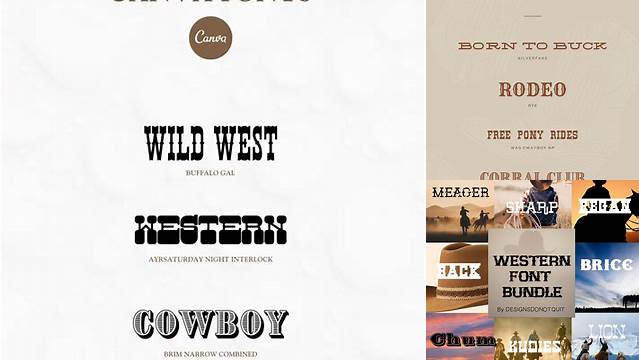
Free Western Fonts On Canva: A Design Roundup
Hey guys! Are you looking to add a touch of the Wild West to your designs? You've come to the right place. Using western fonts can give your projects that authentic, rustic feel, perfect for everything from posters and invitations to branding and social media graphics. Canva, the super user-friendly design platform, offers a fantastic selection of free western fonts that you can use to create stunning visuals. This article will guide you through the best free western fonts available on Canva, how to use them effectively, and even some design tips to help you create your own Wild West masterpiece. So, saddle up and let’s dive into the world of western typography on Canva!
1. Best Free Western Fonts for Canva
When it comes to the best free western fonts for Canva, there’s a whole herd to choose from! The key is to find fonts that not only capture the essence of the Wild West but also work well in your specific design project. Think about the mood you're trying to create. Are you going for a classic, old-timey feel? Or something a bit more modern with a western twist? Some fonts are bold and attention-grabbing, perfect for headlines, while others are more subtle and work well for body text. Exploring different options and seeing how they look in your design is crucial. Don't be afraid to experiment with different font pairings, sizes, and colors. Remember, the right font can make all the difference in conveying your message and creating a visually appealing design. So, let's round up some top contenders!
2. Canva's Western Font Selection
Canva's got a seriously impressive selection of western fonts, making it a goldmine for designers looking to add some frontier flair to their work. Seriously, you can find everything from classic slab serifs that scream “Wanted” poster to more stylized scripts that evoke the charm of a dusty saloon. The beauty of Canva is that it makes exploring these fonts super easy. You can simply type in "western" or related keywords in the font search bar and bam! A whole range of options appears before your very eyes. Plus, Canva's user-friendly interface means you can quickly preview how each font looks in your design, playing around with sizes, colors, and effects until you strike design gold. Whether you're working on invitations, logos, social media posts, or anything in between, Canva's western font selection has you covered. So, go ahead and start exploring – your inner cowboy (or cowgirl) will thank you!
3. Classic Western Fonts on Canva Free
If you're aiming for that authentic, old-school Wild West vibe, then classic western fonts are your trusty steeds. These fonts typically feature bold, slab-serif letterforms that instantly conjure up images of old wanted posters, saloon signs, and vintage advertisements. Think fonts with strong, sturdy characters and a bit of rugged charm. Canva offers a fantastic selection of these classic western fonts for free, making it super easy to nail that retro aesthetic. Some popular choices include fonts that mimic the look of wood type or letterpress printing, giving your designs a tactile and handcrafted feel. Using these fonts effectively involves considering their impact. They tend to be quite assertive, so it's often best to pair them with simpler, cleaner fonts for body text. Experiment with different font sizes and weights to create visual hierarchy and ensure your message stands out. Don't be shy about adding a touch of texture or distress to your designs to really sell that vintage western feel.
4. Rustic Western Fonts for Free on Canva
For a more rustic and weathered look, Canva's got you covered with a range of free western fonts that have that perfect touch of grit and charm. These fonts often feature slightly uneven lines, distressed textures, and a hand-drawn feel, making them ideal for designs that need a bit of earthy authenticity. Imagine the kind of lettering you'd see on an old general store sign or a weathered saddle – that's the vibe we're going for here! When you're working with these rustic fonts, think about how they can enhance your overall design. They're fantastic for creating a sense of history and heritage, so they're perfect for projects related to the outdoors, country living, or vintage themes. To really make these fonts shine, consider pairing them with natural textures, such as wood grain or leather, and a warm, muted color palette. Adding a subtle drop shadow or a slight blur can also enhance the rustic effect, making your typography look like it's been weathered by the desert sun.
5. Vintage Western Fonts on Canva: Free Options
Looking to evoke the spirit of the Old West? Vintage western fonts are your secret weapon, and Canva has a stellar selection of free options to choose from. These fonts are all about capturing the essence of a bygone era, with their intricate serifs, bold strokes, and a touch of old-world charm. Think of the lettering you'd see on a vintage whiskey label, a saloon's swinging doors, or a classic Western movie poster – that's the aesthetic we're aiming for. The key to using these fonts effectively is to play up their vintage feel. Consider incorporating elements like ornate borders, classic illustrations, and aged textures to complement the typography. Color palettes are also crucial: think warm browns, faded reds, and antique golds to really sell the vintage vibe. These fonts are fantastic for creating logos, invitations, posters, and any design that needs a dose of historical flair. With Canva's free vintage western fonts, you can easily transport your audience back to the Wild West!
6. Using Western Fonts for Branding on Canva
Using western fonts for branding can be a fantastic way to stand out and create a memorable identity, especially if your brand has a connection to the Wild West, Americana, or a rustic aesthetic. Canva makes it super easy to incorporate these fonts into your branding materials, from logos and business cards to social media graphics and website headers. The key is to choose a western font that reflects your brand's personality and values. A bold, slab-serif font might be perfect for a rugged outdoor brand, while a more elegant script font could work well for a boutique with a western-inspired style. Once you've selected your font, be consistent in using it across all your branding materials to create a cohesive and recognizable look. Consider the other elements of your brand identity, such as your color palette and imagery, to ensure they complement the western font and create a unified visual message. With the right font choice and a consistent approach, you can lasso your audience's attention and build a brand that's as bold and unique as the Wild West itself!
7. Western Fonts for Logos on Canva
Your logo is the face of your brand, so choosing the right font is essential. Western fonts can be a powerful choice for logos that need a rugged, vintage, or Americana feel, and Canva offers a great range of options to play with. When selecting a western font for your logo, think about the message you want to convey. A strong, bold font can communicate reliability and strength, while a more decorative font might suggest a sense of tradition or craftsmanship. Consider the legibility of the font, especially at smaller sizes, to ensure your logo remains clear and recognizable. It's also a good idea to experiment with different font pairings to create a unique and balanced look. Canva's easy-to-use design tools make it simple to try out various fonts, sizes, and styles until you find the perfect fit for your brand. A well-chosen western font can give your logo a distinctive edge, helping you stand out from the crowd and make a lasting impression.
8. Best Free Western Style Fonts on Canva
When you're aiming for that authentic Wild West vibe, snagging the best free western-style fonts on Canva is like striking gold! We're talking about those fonts that just scream “cowboy,” “saloon,” and “vintage Americana.” Canva's packed with options, from those sturdy slab serifs that look straight off a wanted poster to the more swashbuckling scripts that bring a touch of outlaw charm. These free western-style fonts are perfect for posters, invitations, logos, and any design that needs a dose of that old-timey flair. To make the most of them, think about how they work with your overall design. Pair them with classic western imagery like horseshoes, cacti, and ropes, and use a color palette of browns, reds, and creams to complete the look. Whether you’re creating a flyer for a country music night or branding a rustic business, these fonts will help you hit the bullseye every time.
9. Western Fonts for Posters on Canva: Free Options
Want to create a poster that really stands out and captures the spirit of the Old West? Using western fonts is a surefire way to do it, and Canva has a heap of free options to help you nail that vintage vibe. Think about those classic movie posters or old-timey advertisements – the fonts they used were bold, distinctive, and packed with character. Canva offers a range of fonts that fit the bill, from strong slab serifs to decorative scripts, perfect for headlines, subheadings, and even body text if you choose wisely. When designing your poster, consider the overall aesthetic you're aiming for. Western fonts pair beautifully with rustic textures, vintage illustrations, and earthy color palettes. Don't be afraid to experiment with different font combinations to create a visually appealing and impactful design. Whether you're promoting a rodeo, a country music concert, or a Wild West-themed event, the right western font will make your poster a real standout.
10. Western Fonts for Invitations on Canva: Free Choices
Planning a Wild West-themed party or event? Western fonts are your go-to for creating invitations that capture the spirit of the frontier. Canva’s got a whole posse of free choices that will help you set the tone right from the start. When it comes to invitations, you want fonts that are not only stylish but also easy to read. Think about using a bold, attention-grabbing font for the main event details and a cleaner, simpler font for any additional information. Canva offers a variety of western fonts, from classic slab serifs that evoke vintage wanted posters to elegant scripts that add a touch of rustic charm. To really nail the western theme, consider incorporating other design elements like rope borders, cowboy hats, or desert landscapes. And remember, a well-chosen color palette – think browns, reds, and dusty yellows – can enhance the overall effect. With Canva's free western fonts, your invitations are sure to be a hit!
11. Canva Free Western Font Generator
While Canva itself doesn't have a dedicated "western font generator" in the sense of creating completely new fonts from scratch, it does offer a super user-friendly way to access and use a wide range of free western fonts. You can think of Canva as a fantastic western font resource, where you can easily browse, preview, and incorporate these fonts into your designs. The platform's intuitive interface allows you to experiment with different font styles, sizes, and colors, making it simple to create the perfect western look for your project. Plus, Canva’s text tools let you add effects like shadows, outlines, and curves, further customizing your typography. So, while you're not actually generating new fonts, Canva gives you all the tools you need to create stunning western-themed designs with ease. It’s like having a whole font foundry at your fingertips, ready to bring your Wild West visions to life!
12. How to Download Western Fonts for Canva Free
Okay, so here’s the deal: you don’t actually download western fonts directly into Canva in the traditional sense. Canva works a little differently. Instead of downloading font files, you use the fonts that are already available within the Canva platform. The awesome thing is that Canva has a bunch of free western fonts you can use in your designs without any hassle. To access them, you simply open your design in Canva, select the text you want to style, and then click on the font dropdown menu. From there, you can search for “western” or browse through the different font styles until you find the perfect one. It’s super easy and convenient! Plus, Canva regularly updates its font library, so you’ll always have fresh options to choose from. So, no need to worry about downloads – just dive in and start designing!
13. Western Script Fonts on Canva Free
If you're looking to add a touch of elegance and flair to your western-themed designs, then western script fonts are the way to go, and Canva has some fantastic free options available. These fonts often feature flowing, cursive-style letterforms that evoke the charm of old-timey saloons and vintage signage. They're perfect for adding a touch of sophistication to invitations, logos, and other designs where you want to make a statement. When using western script fonts, it's important to consider readability. These fonts can be quite decorative, so it's best to use them sparingly, perhaps for headlines or short phrases. Pair them with a simpler, more legible font for body text to ensure your message is clear. Canva makes it easy to experiment with different font combinations and styles, so you can find the perfect balance for your design. With the right western script font, you can add a touch of Wild West elegance to your projects.
14. Best Western Fonts for Commercial Use on Canva Free
When you're creating designs for commercial projects, it's crucial to make sure you have the right to use the fonts you choose. Luckily, Canva offers a great selection of western fonts that are free for commercial use, meaning you can use them in your projects without worrying about licensing issues. This is a huge plus for designers and entrepreneurs who want to create professional-looking materials without breaking the bank. To ensure you're using a font that's free for commercial use, check Canva's licensing terms, which are usually clearly indicated. The majority of Canva's free fonts fall under this category, but it's always a good idea to double-check. With Canva's wide range of commercially-free western fonts, you can confidently create logos, marketing materials, and other designs that capture the spirit of the Wild West, knowing you're fully covered legally.
15. Western Serif Fonts Free on Canva
Western serif fonts are a classic choice for designs that need a strong, traditional, and undeniably Wild West feel. The serifs – those little decorative strokes at the ends of the letters – give these fonts a sense of formality and heritage. Canva offers a solid selection of free western serif fonts that are perfect for everything from posters and invitations to branding and website headers. Think about the classic wanted posters or the signage on an old general store – those often used serif fonts to convey a sense of authenticity and authority. When using western serif fonts, consider the overall tone of your design. These fonts tend to be quite assertive, so they're great for headlines and titles. Pair them with a simpler sans-serif font for body text to ensure readability. Canva's easy-to-use design tools make it simple to experiment with different font pairings and styles until you find the perfect combination for your project.
16. Western Calligraphy Fonts on Canva for Free
For a touch of elegance and handwritten charm with a western twist, western calligraphy fonts are a fantastic choice. These fonts evoke the spirit of handwritten letters and vintage signage, adding a unique and personal feel to your designs. Canva offers a range of free western calligraphy fonts that can bring a touch of the Wild West to your projects. When using calligraphy fonts, it's important to consider readability. These fonts can be quite decorative, so it's best to use them sparingly, perhaps for headlines, invitations, or special announcements. Pair them with a simpler, more legible font for body text to ensure your message is clear. Canva's design tools make it easy to experiment with different font sizes, colors, and styles, allowing you to create a beautiful and balanced design. A well-chosen western calligraphy font can add a touch of sophistication and personality to your projects, making them truly stand out.
17. Free Western Fonts for Cricut on Canva
If you're a Cricut crafter looking to add some Wild West flair to your projects, Canva can be a fantastic resource for finding free western fonts. While you can't directly use fonts from Canva within Cricut Design Space, you can use Canva to create text designs with western fonts and then download those designs as SVGs or other compatible formats to import into Cricut. This allows you to take advantage of Canva's wide selection of free western fonts for your cutting projects. Simply create your text in Canva using your chosen font, customize the size and style as needed, and then download the design as an SVG file. You can then upload the SVG into Cricut Design Space and use it for your vinyl decals, iron-on transfers, and other crafting projects. It's a great way to combine the design power of Canva with the cutting capabilities of your Cricut machine.
18. Wild West Style Fonts Free on Canva
If you're going all-in on the Wild West theme, you need fonts that truly capture the spirit of the frontier, and Canva's got a fantastic selection of free options to help you do just that. Think bold slab serifs that evoke the look of wanted posters, rugged scripts that conjure up images of dusty saloons, and decorative fonts that add a touch of vintage charm. These wild west style fonts are perfect for creating everything from posters and invitations to logos and social media graphics. When using these fonts, don't be afraid to embrace the rustic aesthetic. Pair them with earthy colors, vintage textures, and classic western imagery like cowboy hats, horseshoes, and cacti. Canva's easy-to-use design tools make it simple to experiment with different font combinations and styles until you find the perfect look for your project. So, saddle up and get ready to unleash your inner cowboy with Canva's free Wild West fonts!
19. Western Fonts for T-Shirts on Canva: Free Selection
Designing a T-shirt with a Wild West theme? Western fonts are the perfect way to add that authentic touch, and Canva offers a fantastic free selection to choose from. When selecting a font for a T-shirt design, it's important to consider legibility. You want a font that looks great but is also easy to read, even from a distance. Bold, sturdy fonts with clear letterforms tend to work best for T-shirts. Canva offers a variety of western fonts that fit the bill, from classic slab serifs to slightly distressed fonts that add a touch of ruggedness. Think about the overall design of your T-shirt and choose a font that complements the imagery and message. Western fonts pair beautifully with graphics like cowboy hats, horses, and desert landscapes. With Canva's free western fonts, you can create a T-shirt design that's both stylish and full of Wild West spirit.
20. Using Western Fonts with Other Fonts on Canva Free
One of the keys to great typography is knowing how to pair fonts effectively. While western fonts are awesome and full of character, they often shine even brighter when paired with other fonts. Luckily, Canva makes it super easy to experiment with different font combinations, and it's all free! A general rule of thumb is to pair a more decorative western font with a simpler, more legible font. For example, you might use a bold slab-serif western font for a headline and then use a clean sans-serif font for the body text. This creates a visual hierarchy and ensures that your message is clear and easy to read. Canva's font library includes a wide range of sans-serif, serif, and script fonts that pair beautifully with western fonts. Don't be afraid to try out different combinations until you find the perfect balance for your design. With a little experimentation, you can create typography that's both eye-catching and effective.
21. Western Shadow Fonts on Canva: Free Options
To add depth and dimension to your designs, western shadow fonts can be a fantastic choice. These fonts have a built-in shadow effect that gives them a 3D look, making them stand out and grab attention. Canva offers a range of free western fonts with shadow effects, allowing you to easily create eye-catching typography. When using shadow fonts, it's important to consider the overall design and the legibility of the text. The shadow effect can make the font appear bolder and more impactful, so it's often best to use these fonts for headlines or short phrases. Canva's design tools allow you to customize the shadow effect, adjusting the color, distance, and blur to achieve the perfect look. Experiment with different color combinations to see what works best for your design. A well-chosen shadow font can add a touch of drama and visual interest to your western-themed projects.
22. Western Outline Fonts Free on Canva
Western outline fonts are a great way to add a distinctive and vintage touch to your designs, and Canva offers a range of free options that capture the spirit of the Wild West. These fonts feature a hollowed-out appearance, with the letters defined by their outlines rather than solid shapes. This gives them a unique, almost stencil-like look that's perfect for creating a sense of age and authenticity. When using outline fonts, it's important to consider the background color and the overall design. The outlines can sometimes get lost against busy backgrounds, so it's often best to use them on a solid or subtly textured surface. Canva's design tools allow you to adjust the thickness of the outline, giving you greater control over the final look. Experiment with different colors and sizes to see what works best for your project. Western outline fonts are fantastic for logos, posters, and any design that needs a touch of vintage flair.
23. Creating a Western Theme with Canva Free Fonts
Canva is your best buddy when you want to whip up a western theme, and the free fonts are your trusty steeds! It's not just about slapping on any ol’ western-looking font; it’s about creating a whole vibe. Think about what makes the Wild West, well, wild! We’re talking rugged textures, earthy colors, and a touch of that old-timey grit. Start by choosing a main font that screams “cowboy” – maybe a bold slab serif or a swanky script. Then, find a secondary font that’s a bit more understated to balance things out. Canva lets you mix and match like a pro. Toss in some western-style graphics like horseshoes, cacti, or even a sheriff’s badge. And don’t forget the color palette! Warm browns, dusty yellows, and maybe a pop of red can really nail that western feel. With Canva’s free fonts and a little creativity, you’ll be struttin’ into the sunset with a design that’s pure gold!
24. Western Fonts for Social Media on Canva for Free
Want your social media posts to have that Wild West swagger? Canva's got your back with a posse of western fonts that are free to use! Whether you're promoting a country music event, sharing a rustic recipe, or just want to add some old-school charm to your feed, the right font can make all the difference. Think about those classic wanted posters or vintage saloon signs – that's the kind of vibe we're going for! Canva offers a range of fonts that fit the bill, from bold slab serifs to decorative scripts. When designing your social media graphics, keep in mind the platform you're using. Fonts that look great on Instagram might not work as well on Facebook or Twitter. Consider the size and format of your posts and choose fonts that are easy to read on different devices. With Canva's free western fonts, you can create social media content that's both eye-catching and on-brand.
25. Combining Free Western Fonts with Canva Elements
The magic of Canva really shines when you start combining its free western fonts with other design elements. Think of it like crafting a perfect campfire stew – each ingredient (or in this case, design element) adds its own flavor to the mix! Canva’s got a treasure trove of western-themed graphics, illustrations, and photos that can take your designs to the next level. Picture this: a bold slab-serif font paired with a vintage-style illustration of a cowboy on horseback, all set against a rustic wood-grain background. Boom! Instant Wild West vibes. Don’t be afraid to play around with different combinations. Try adding borders, textures, and color overlays to create a unique look. The key is to balance the fonts and elements so that they complement each other without overpowering the design. Canva's drag-and-drop interface makes it super easy to experiment and create designs that are both visually appealing and on-theme. So, go ahead and unleash your creativity – the possibilities are as vast as the open range!
26. Legibility Tips for Western Fonts on Canva Free
Western fonts are awesome for adding a touch of the Wild West to your designs, but let's be real, some of them can be a bit tricky to read if you're not careful. The good news is that Canva gives you all the tools you need to make sure your typography is both stylish and legible, and it's all free! The first tip is to think about contrast. If you're using a bold, decorative western font, pair it with a simpler font for body text to avoid overwhelming the reader. Also, make sure there's enough contrast between your text color and the background. Light text on a dark background or vice versa usually works best. Font size matters too! Western fonts often look better when they're a bit larger, but avoid making them so big that they dominate the entire design. Finally, pay attention to spacing. Adjust the letter spacing and line height to make sure your text is easy to scan. With a little attention to these details, you can make your western fonts shine without sacrificing readability.
27. Advanced Tips for Using Western Fonts on Canva Without Spending a Dime
Okay, so you're ready to take your western font game on Canva to the next level, and you wanna do it all without spending a dime? You got it! Let's dive into some advanced tips that'll make your designs look like they were crafted by a seasoned pro. First up: font pairing. Don't just slap a western font on there and call it a day. Think about what other fonts will complement it. A classic pairing is a bold slab serif with a clean sans-serif. Next, play with layering. Canva lets you layer text boxes, so try creating a shadow effect by duplicating your text and slightly offsetting it in a different color. Another pro tip: use Canva's effects to add even more visual interest. Try adding a slight curve or a subtle glow to your text. And finally, don't be afraid to experiment! Canva is a playground for creativity, so try out different font combinations, sizes, and styles until you find the perfect look. With these advanced tips, you can create stunning western designs on Canva without spending a single buck!
28. Free Western Fonts on Canva for Your Next Project
Got a project that needs a touch of the Wild West? Canva’s got your back with a whole herd of free western fonts ready to ride into action! Whether you're designing a poster for a rodeo, creating invitations for a country-themed party, or branding a rustic business, the right font can make all the difference. The best part? Canva's got options for every style, from classic slab serifs that evoke vintage wanted posters to elegant scripts that add a touch of old-world charm. Before you dive in, think about the overall message you want to convey and choose a font that fits the mood. A bold, sturdy font might be perfect for a headline, while a more delicate script could work well for a tagline or invitation details. Canva's easy-to-use design tools make it a breeze to experiment with different fonts and styles until you find the perfect fit for your next project.
29. Free Resources for Western Design Elements on Canva
Alright, you've got your western fonts sorted on Canva, but what about the rest of your design? Luckily, Canva is a treasure trove of free resources that can help you create a truly authentic Wild West look. We're talking about graphics, illustrations, photos, and even templates that are all just a click away. Start by searching for western-themed keywords in Canva's elements library. You'll find everything from cowboy hats and horseshoes to cacti and vintage badges. Don't be afraid to mix and match different elements to create a unique design. Canva also offers a range of free templates that you can customize to suit your needs. These templates can be a great starting point if you're feeling a bit overwhelmed or just need some inspiration. And remember, Canva's color palettes are your friend! Choose a warm, earthy color palette to enhance the western feel of your design. With Canva's free resources, you can create a stunning Wild West design without breaking the bank.
30. Future Trends in Western Font Design on Canva for Free
The world of font design is always evolving, and western fonts are no exception! So, what does the future hold for these rugged and stylish typefaces on Canva? While we can't predict the future with 100% certainty, we can definitely spot some trends brewing on the horizon, especially within Canva's free font offerings. We're likely to see a rise in more hand-drawn and textured western fonts, giving designs an even more authentic and vintage feel. Think fonts that look like they were painted on an old saloon sign or carved into a wooden plank. Another trend we might see is the blending of western fonts with modern styles. Imagine a classic slab serif paired with a clean, minimalist sans-serif for a unique and eye-catching contrast. We can also expect to see more variations within the western font family itself, with designers pushing the boundaries and creating fonts that are both familiar and fresh. And of course, Canva will continue to make these trends accessible to everyone with their user-friendly platform and growing library of free resources. So, keep your eyes peeled for these exciting developments in the world of western font design!